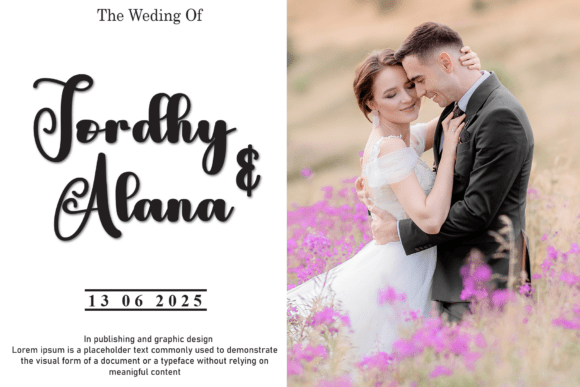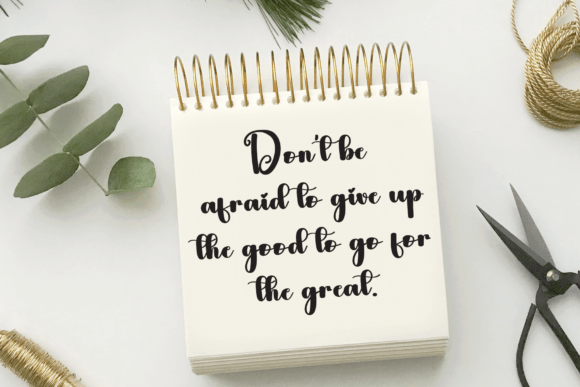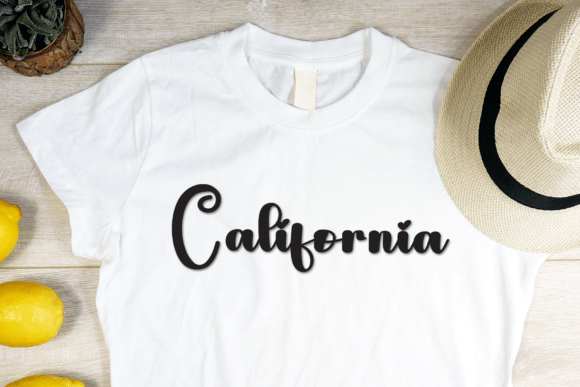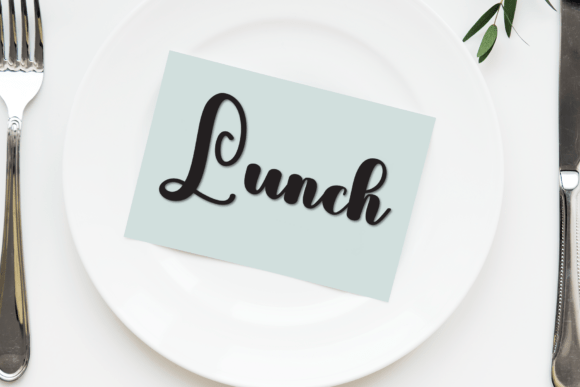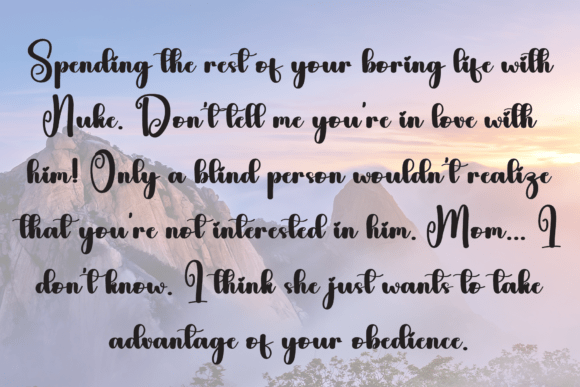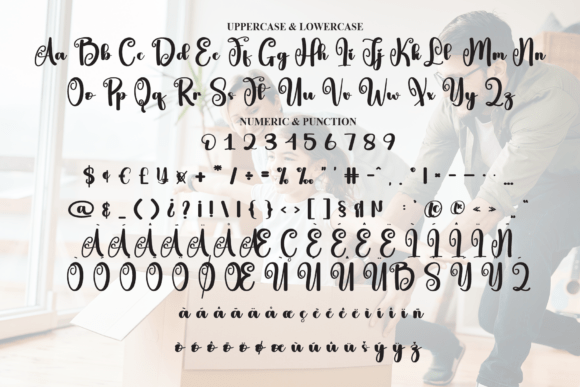
Introducing Family Font: The Perfect Script Font for Family-Themed Designs
Are you looking for a font that captures the warmth and love of family? Look no further than Family Font, a beautiful script font that is perfect for family-themed designs, home decor quotes, wedding invitations, and more. With its charming curves, beautiful swashes, and sweet heart details, Family Font is sure to add a personal and heartfelt touch to any project.
A Font that Captures the Emotion of Togetherness
Family Font is more than just a font – it’s a way to express the love and connection that comes with being part of a family. Every stroke of this font is designed to capture the emotion of togetherness, making it perfect for designs that celebrate family, love, and relationships. Whether you’re creating a family tree, a wedding invitation, or a home decor quote, Family Font is the perfect choice.
Beautiful Swashes and Charming Curves
One of the standout features of Family Font is its beautiful swashes and charming curves. These elegant flourishes add a touch of sophistication and whimsy to any design, making it perfect for projects that need a little extra personality. The swashes and curves in Family Font are carefully crafted to work seamlessly together, creating a beautiful and cohesive look that is sure to impress.
Sweet Heart Details
Another lovely feature of Family Font is its sweet heart details. These tiny touches of whimsy add a playful and romantic feel to any design, making it perfect for wedding invitations, anniversary cards, and other projects that celebrate love. The heart details in Family Font are carefully placed throughout the font, adding a subtle yet charming touch to every letter and word.
Family Font is perfect for designers and crafters who want to add a personal touch to their projects. Whether you’re creating digital designs or handmade crafts, this font is sure to inspire and delight. With its beautiful swashes, charming curves, and sweet heart details, Family Font is the perfect choice for a wide range of projects, including:
- Family trees and genealogy projects
- Wedding invitations and anniversary cards
- Home decor quotes and signs
- Personalized gifts and crafts
Why Choose Family Font?
- Unique and eye-catching design: Family Font features a unique and eye-catching design that is sure to stand out from the crowd.
- Emotional connection: This font captures the emotion of togetherness and love, making it perfect for projects that celebrate family and relationships.
- Versatile: Family Font is versatile and can be used for a wide range of projects, from digital designs to handmade crafts.
In conclusion, Family Font is a beautiful script font that is perfect for family-themed designs, home decor quotes, wedding invitations, and more. With its charming curves, beautiful swashes, and sweet heart details, this font is sure to add a personal and heartfelt touch to any project. Whether you’re a designer or crafter, Family Font is a great choice for anyone looking to create unique and eye-catching designs that celebrate love and family.